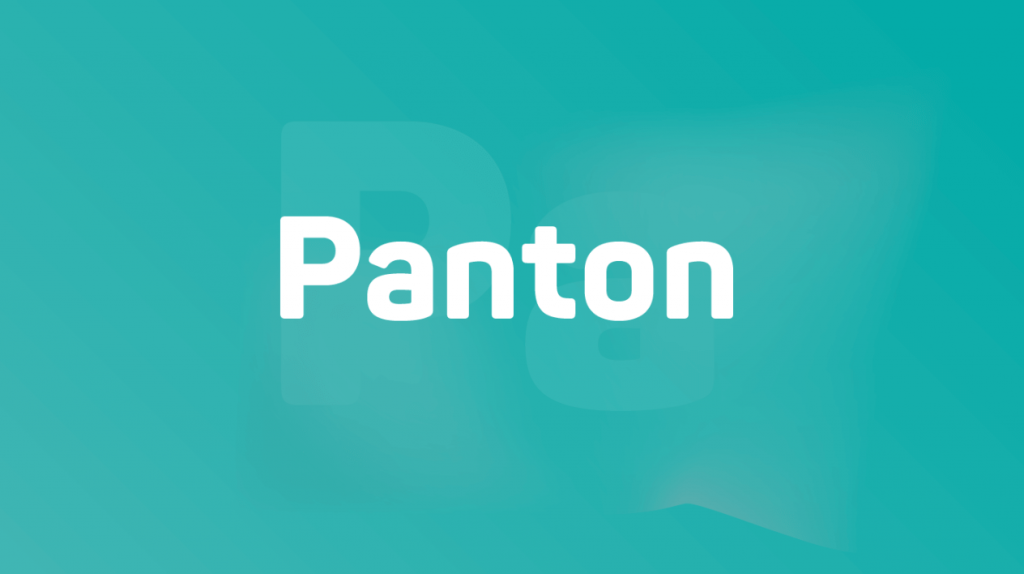
The Panton Font is an elegant sans serif typeface that is widely used by many designers for various purposes. Alongside these highlights, it helps screen clarity qualities.
And resolves the requirements of designers looking for width-compatible typefaces that is similar to nexa rust to address document portability across platforms. It has great lowercase and uppercase style font.
Every single letter got its uniform and top-notch quality that is perfect for displaying or printing purposes. Therefore, Let’s have a look at the font texture images we put in here to understand it more clearly.
Panton Font Features
After that, you will be able to use this coolest font that looks like aller font to create banners adds, movie posters, product packaging, labeling, official cards, birthday or greeting card designs and many other similar things.